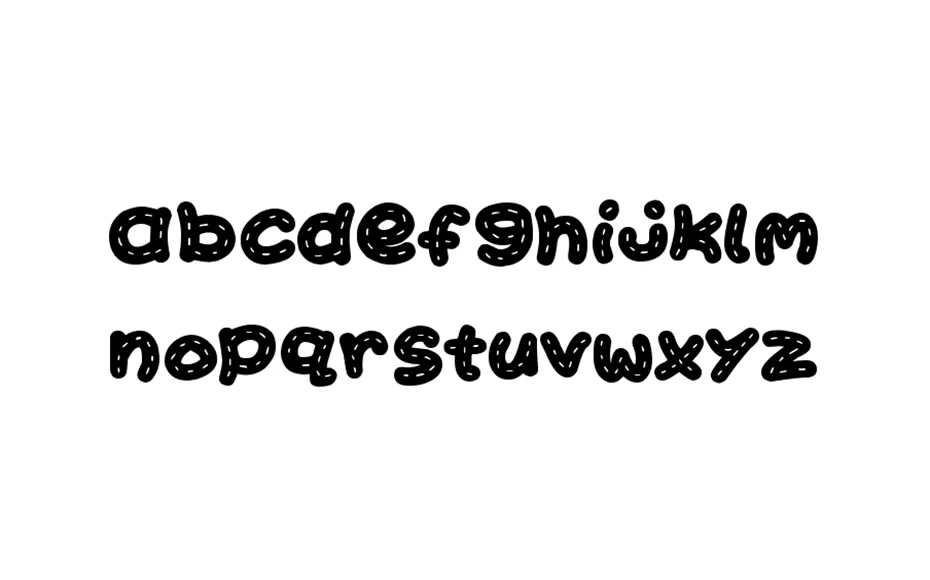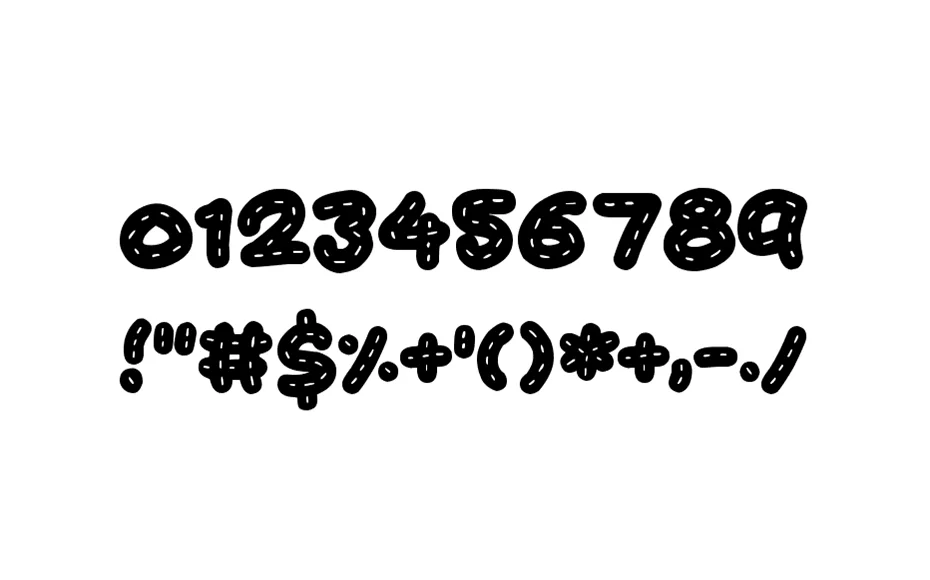
Kawaii Stitch Font is a fun and bold cartoon typeface that has a very attractive letter design. It’s perfect for everything from kids’ posters to book covers and more.
Darrell Flood, a well-known font foundry is known as the primary designer of this typeface.
Its all design is bold with round strokes. Therefore, you will not find any straight stock in the whole font. This is truly a unique aspect of it as it maintains a playful look.
It has rare style dots in each letter that indicates the identity. So, in the same way, its heavy strokes, rounded corners, and sweetness show its identity.
For more information on its structure, see the font map images we have included here.
You can use it in various projects like movie titles, banners displays, posters, logos, games texture, hoardings, business, an invitation or wedding cards, kid’s elements, advertisements, flyers, stationery, labeling, animated movies titles, and so on.
Kawaii Stitch Font comprises only a single weight that has more than 109 characters and 67 unique glyphs.